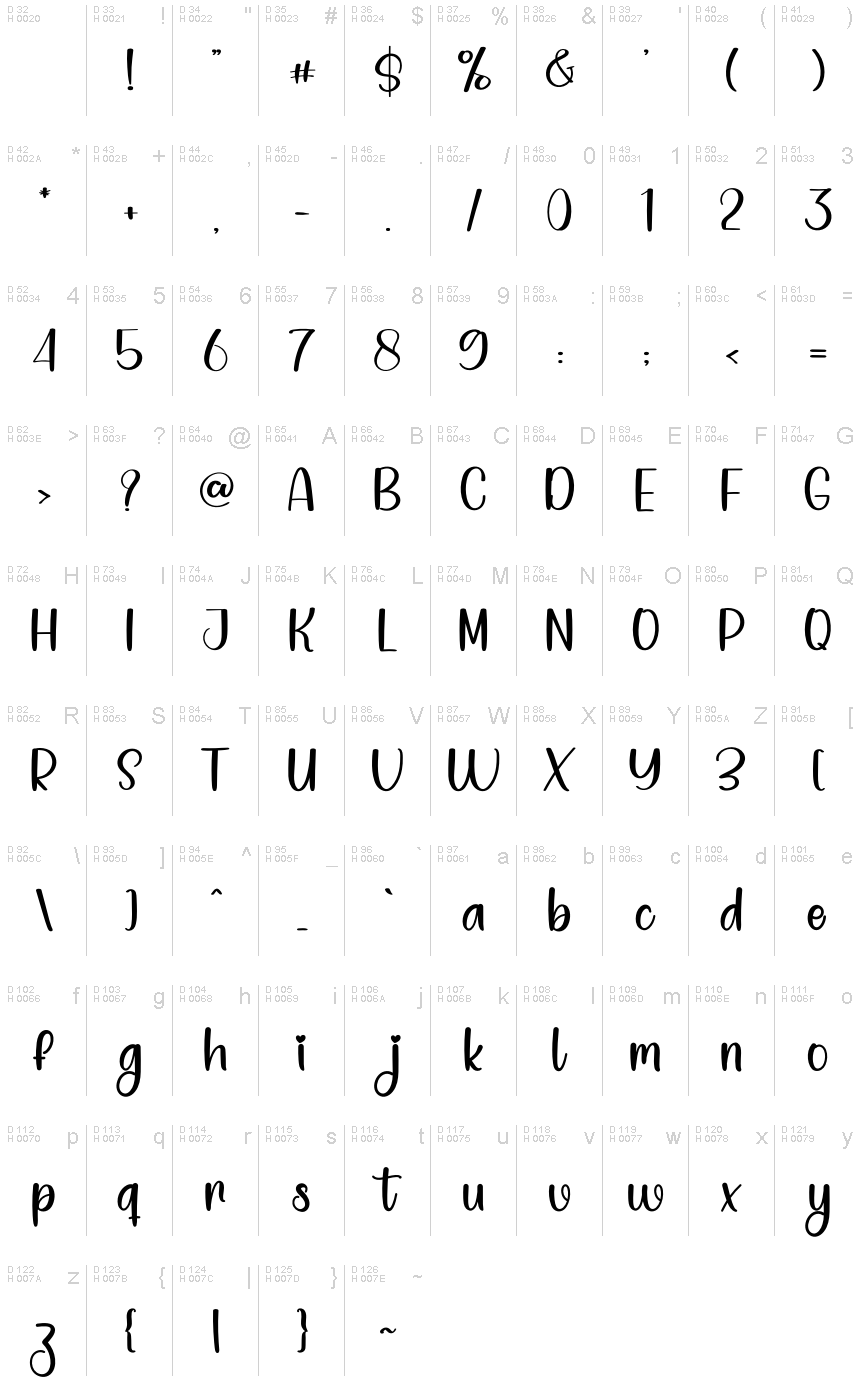
Simple Paper
Simple Paper, designed by Inermedia Studio, captures the essence of personal touch in its handwritten style. This font boasts an aesthetic that resonates with warmth and authenticity, making it an ideal choice for projects that require a hint of intimacy and originality. With elegant curves and a flowing rhythm, Simple Paper exudes a casual yet sophisticated vibe.
Its versatile appearance ensures that it stands out in various creative contexts—be it branding, invitations, or editorial design. The approachable nature of Simple Paper lends itself to designs seeking to establish an inviting and friendly atmosphere. Whether used for digital media or print, this font imbues your message with a sense of craftsmanship and bespoke charm that is hard to miss.